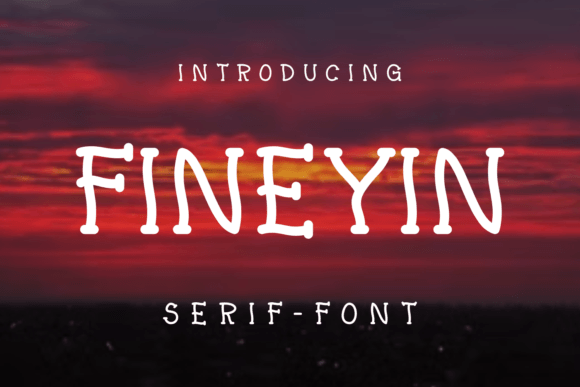
**Unleash the Power of Fineyin: The Serif Font That Will Elevate Your Book Publishing**
In the realm of captivating storytelling, typography holds the power to transport readers into the depths of imagination. Introducing Fineyin, the extraordinary serif font that will transform your written masterpieces into unforgettable journeys.
Crafted with meticulous precision and an unwavering eye for detail, Fineyin's elegant curves and sharp edges dance across the page with grace and sophistication. Its timeless beauty will add an air of distinction to your books, captivating readers from the very first glance.
Whether you're crafting a spellbinding fantasy, a poignant memoir, or an informative guide, Fineyin's versatility knows no bounds. Its intricate details will enhance the emotional depth of your words, drawing readers into the heart of your narrative.
Fineyin's meticulous design ensures effortless readability, allowing your message to flow seamlessly from page to page. Its carefully balanced letterforms create a harmonious rhythm that guides the eye effortlessly through your text, ensuring an immersive reading experience.
Beyond its practical advantages, Fineyin is a font infused with character and personality. Its distinctive style will add a touch of uniqueness to your books, making them stand out from the crowd.
In a world where words ignite imaginations, Fineyin is the key that unlocks the door to limitless storytelling possibilities. Its timeless beauty and unwavering elegance will elevate your book publishing endeavors to new heights, leaving an unforgettable mark on the minds of your readers.
**Why Choose Fineyin?**
* Enhance the emotional impact of your storytelling with its intricate details
* Captivate readers with its timeless beauty and sophistication
* Ensure effortless readability with its meticulously designed letterforms
* Add a touch of uniqueness to your books with its distinctive style
* Unleash limitless storytelling possibilities with its versatility